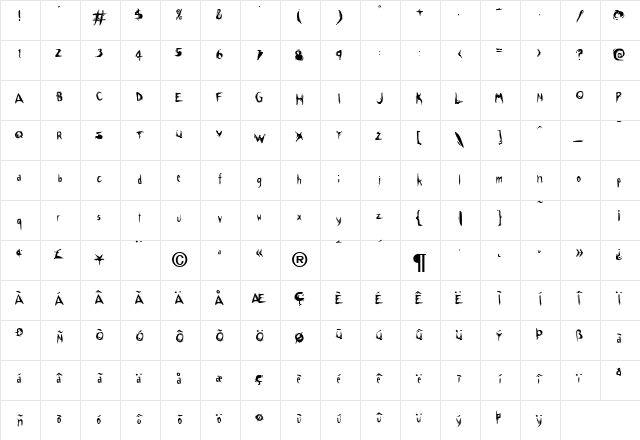
Pillowbiter Normal
Design Context for Pillowbiter Typeface
Pillowbiter is a composed and adaptable typeface that performs quietly and consistently across a wide range of design contexts.